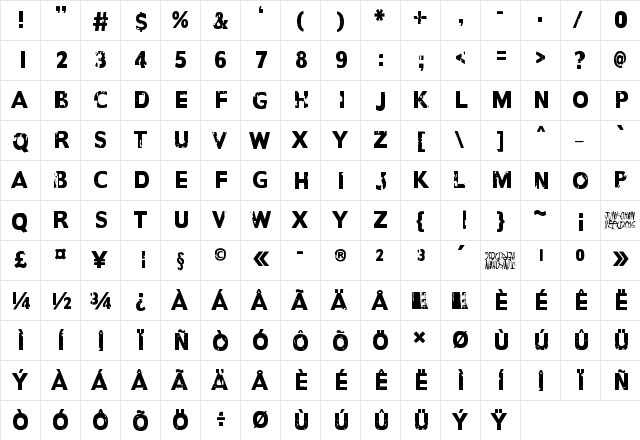
Another name for Regular
Design Context for Another name for Typeface
Another name for is a composed and adaptable typeface that performs quietly and consistently across a wide range of design contexts.